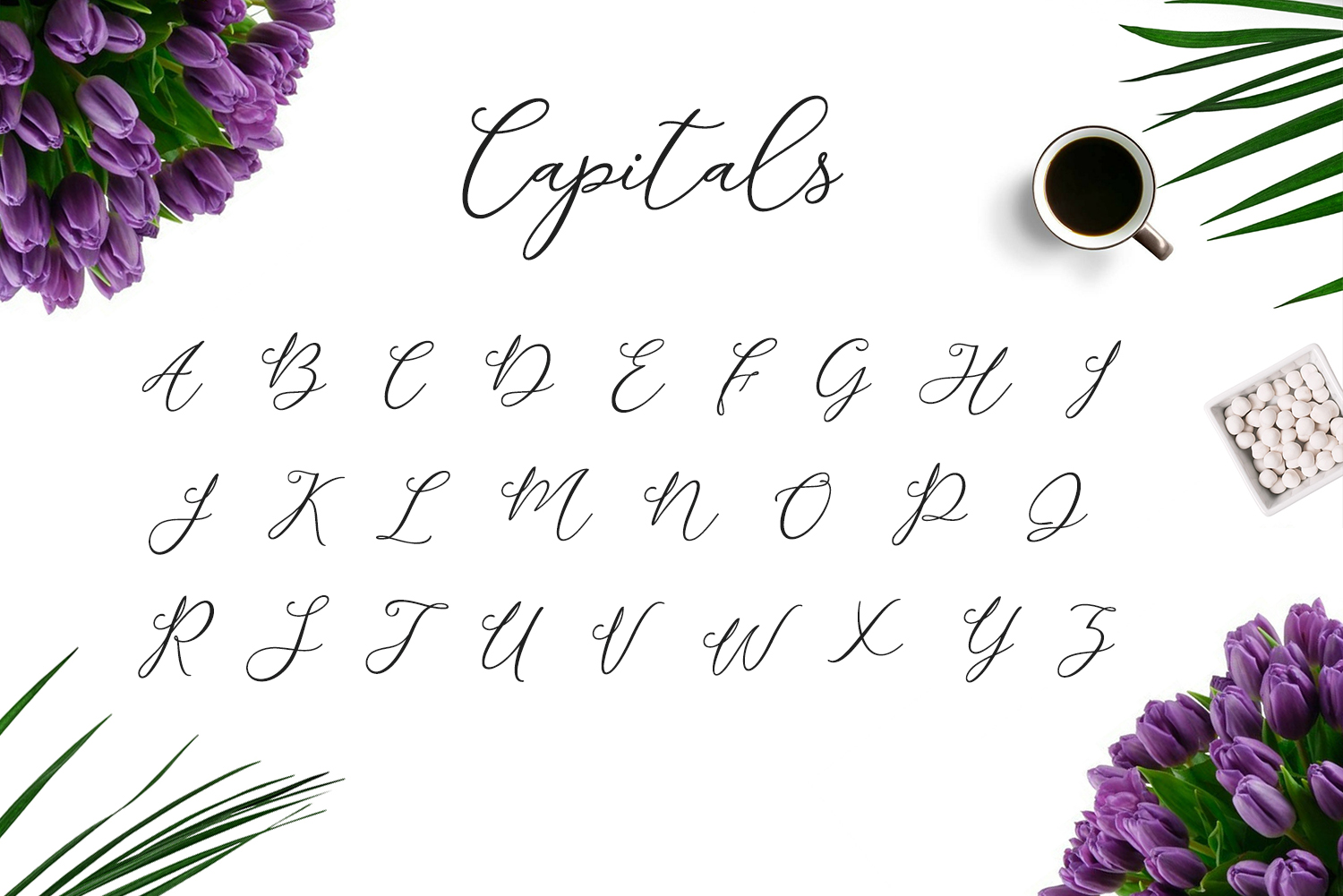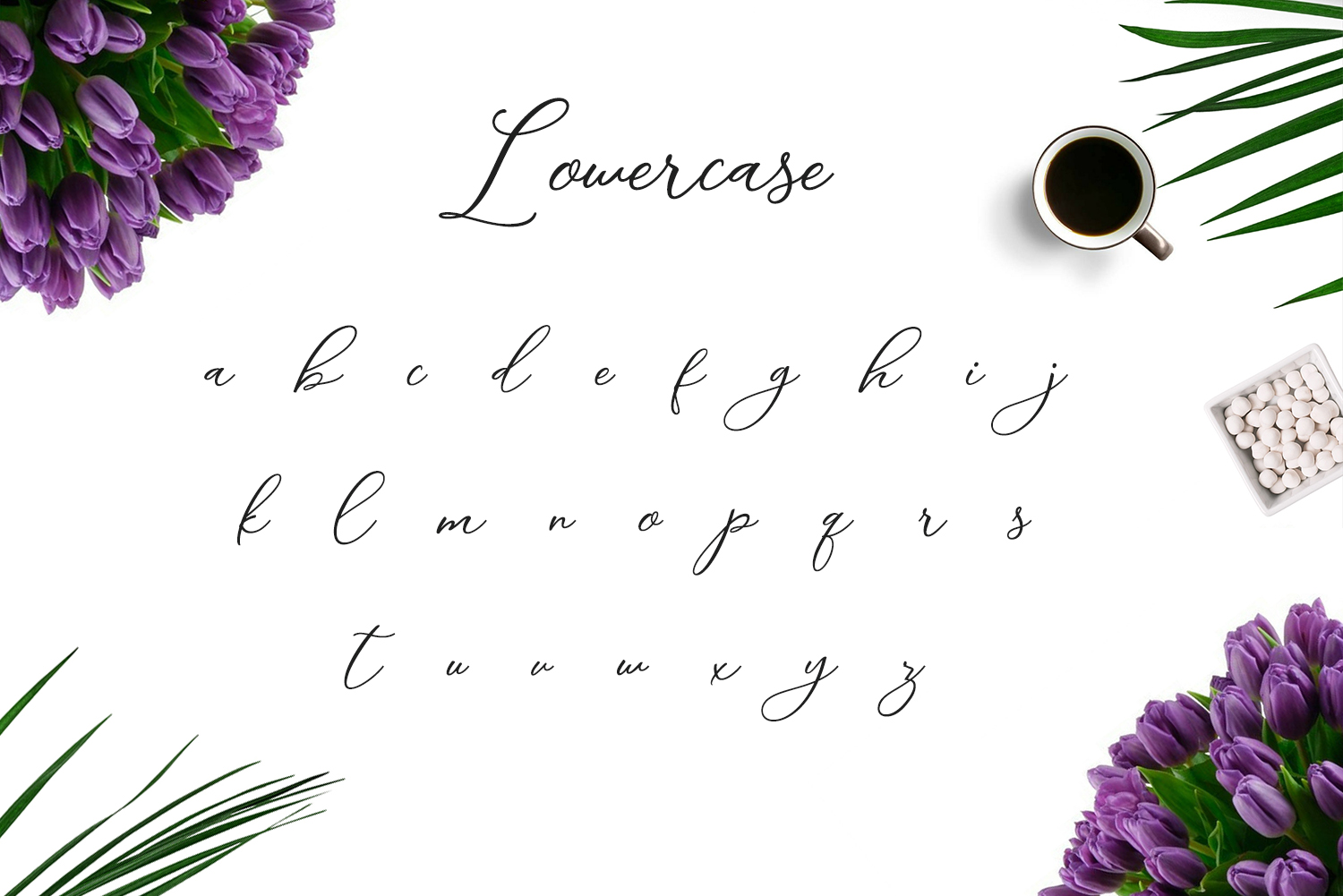
The Camomile Script Font: A Designer’s New Best Friend
I still remember the project that led me to discover the Camomile Script Font. I was working on a wedding invitation design, and my client had a very specific vision: elegant, sophisticated, and with a touch of whimsy. I had spent hours scouring font websites, but nothing seemed quite right. That was when I stumbled upon Camomile, and it was love at first sight! ✨
With its beautiful calligraphy style and over 350 glyphs, Camomile offers endless possibilities for creative expression. In this article, I’ll share my honest review of the font, provide a practical guide on how to use it, and explore similar fonts that you might enjoy.
An Honest Review of Camomile Script Font
- ✨ Elegant and sophisticated: Camomile exudes refinement and poise, making it perfect for high-end projects.
- ✅ Versatile: With over 350 glyphs, you can use Camomile for a wide range of designs, from wedding invitations to branding and packaging.
- 💫 Beautifully crafted: The font’s calligraphy style is meticulously designed, with intricate details that make it stand out.
While Camomile is an amazing font, there are a few things to keep in mind: 🤔
- ⚠️ Glyph overload: With so many glyphs to choose from, it can be overwhelming to navigate. Take some time to explore the font and get familiar with its features.
- ⚠️ Limited use in body text: Due to its script nature, Camomile is best suited for headlines, titles, and short paragraphs. For longer texts, consider using a serif or sans-serif font.
A Practical Guide to Using Camomile Script Font
- Experiment with OpenType features, such as stylistic alternates and glyphs, to add visual interest to your design.
- Choose Camomile from the font dropdown menu and explore its OpenType features, such as ligatures and stylistic sets.
The Story Behind Camomile Script Font
While the true story behind Camomile’s creation may be unknown, it’s easy to imagine a designer pouring their heart and soul into crafting such a beautiful font. Perhaps they were inspired by the delicate petals of the camomile flower, or the elegant script styles of ancient manuscripts. Whatever the inspiration, Camomile is a true masterpiece that deserves to be celebrated.
Q: What type of projects is Camomile best suited for?
A: Camomile is versatile and can be used for a wide range of projects, including wedding invitations, branding, packaging, and more.
Q: How do I access the OpenType features in Camomile?
A: The process varies depending on the design software you’re using. In general, look for the “Glyphs” or “OpenType” panel to access features like stylistic alternates, ligatures, and glyphs.